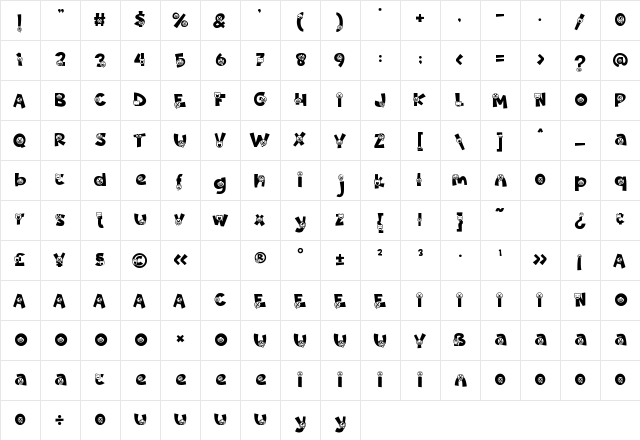
Night Clown Funny Regular
Foundry: Putracetol Studio, Karanganyar.
Designer: Putra Novembria Candra Kusuma
Design Context for Night Clown Funny
Night Clown Funny has an approachable, lighthearted character - its loose, expressive forms are well-suited to children's content, casual branding, and fun-first design.
Font Pairing: Pairs well with a rounded or humanist sans for body copy, maintaining the friendly tone without relying on Night Clown Funny to carry extended reading.
Pro Tip: Use Night Clown Funny at larger display sizes where its expressive character can land. Pair with a clean, simple sans for body copy to maintain readability.